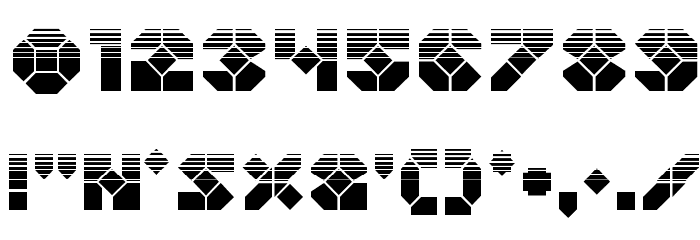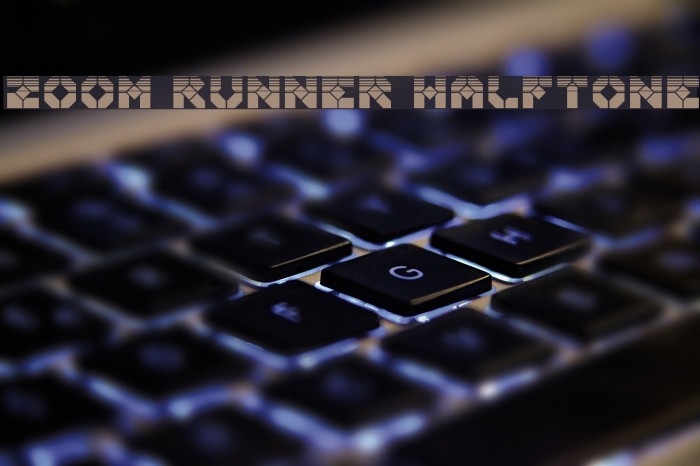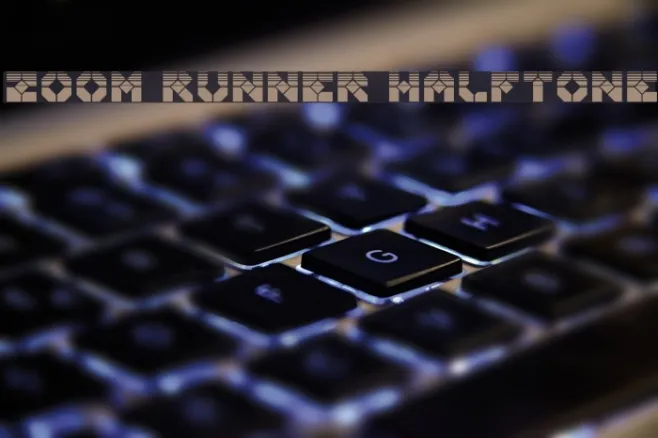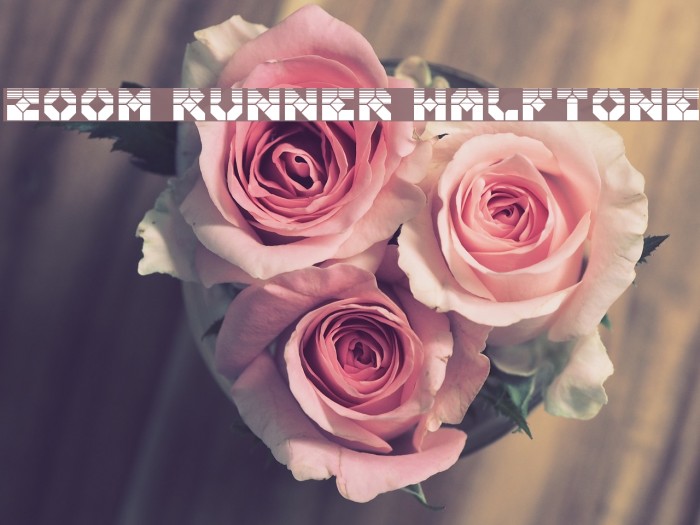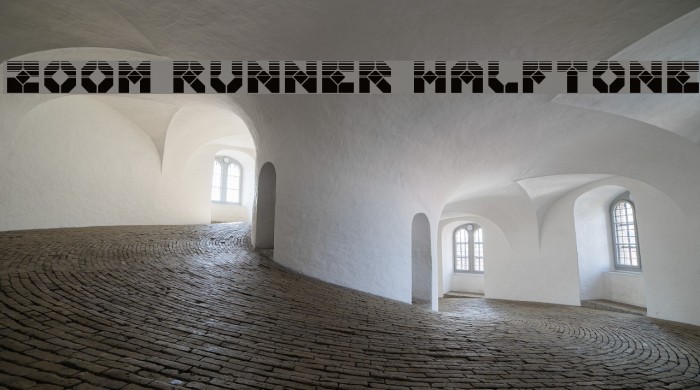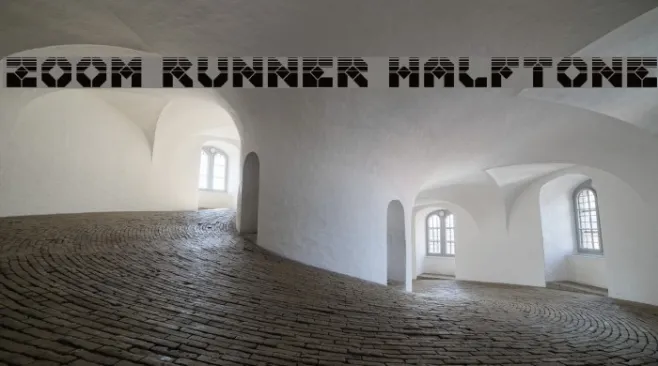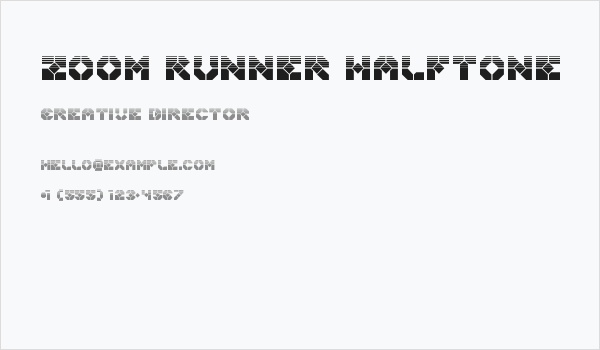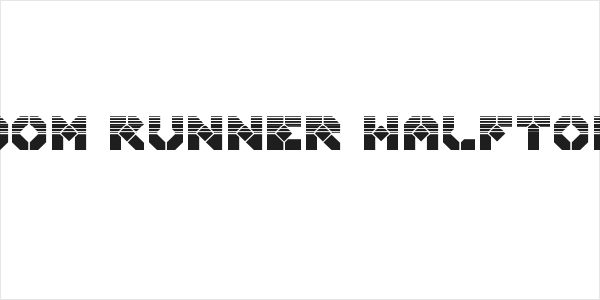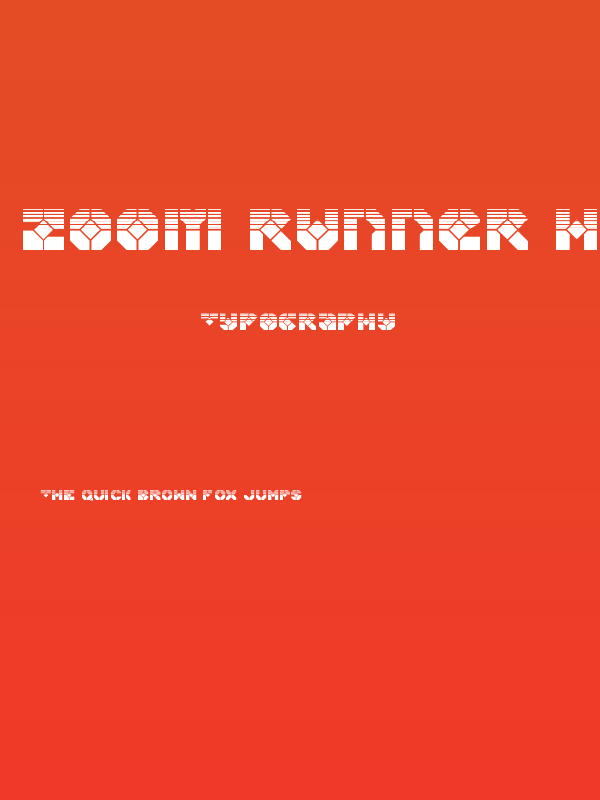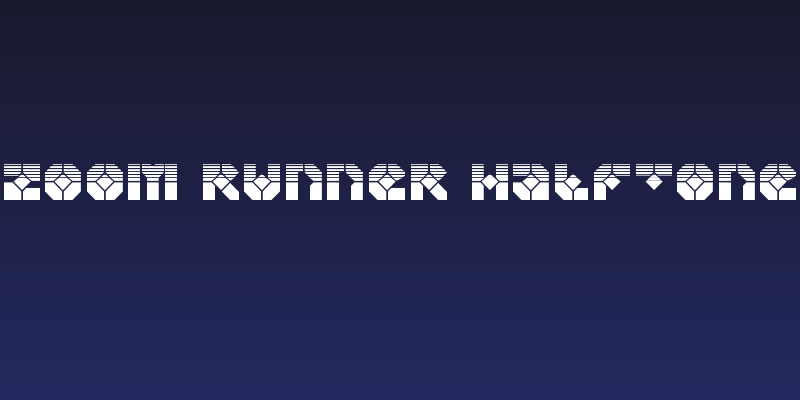
Zoom Runner Halftone Font
Zoom Runner Halftone Description
This font features a bold, geometric design with a halftone effect that creates a dynamic and modern appearance. Each character is constructed with a series of horizontal lines and solid blocks, giving it a unique, segmented look. The uppercase and lowercase letters maintain a consistent style, emphasizing the font's cohesive and structured nature. The numbers and special characters are designed to match the overall aesthetic, ensuring uniformity across all elements. This font's distinct style makes it stand out, offering a visually striking option for various design projects.
| Proposed Projects | Ideal for futuristic designs, tech-related branding, posters, and digital artwork. |